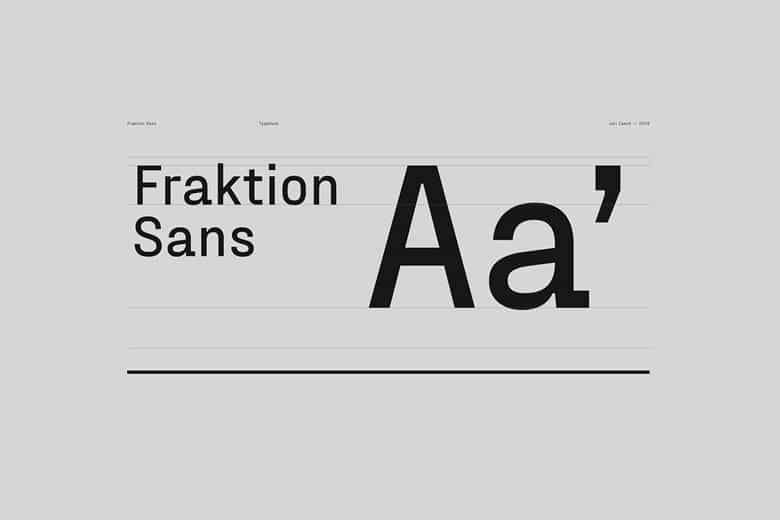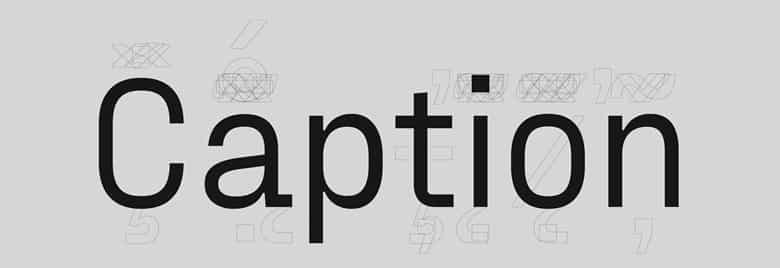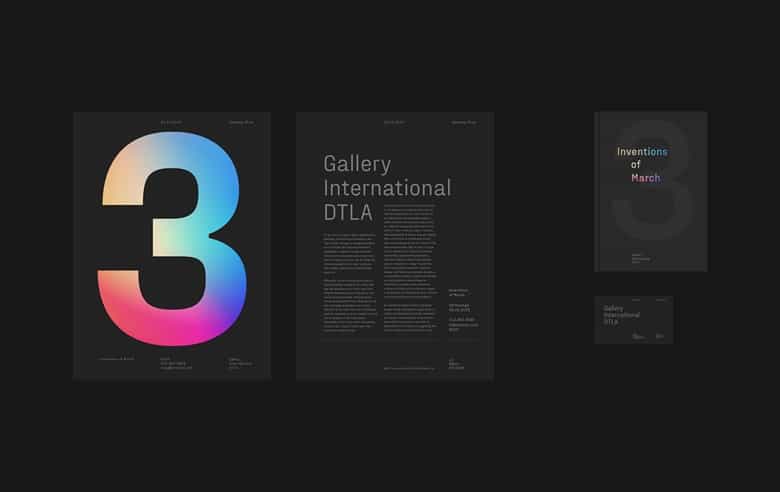
Fraktion Sans is a modern and minimalistic sans serif font family with a design that suits both screen and print media with 7 styles to choose from.. Short and squat with true verticals, the capital letters and round forms of the typeface give it a steady beat. It is available in six weights from Light to Black and includes many typographic possibilities due to OpenType features, such as case sensitive punctuation, stylistic sets, fractions, slash zero, and tabular and old style figures.